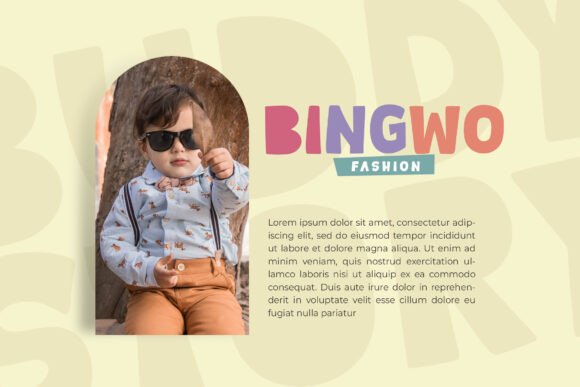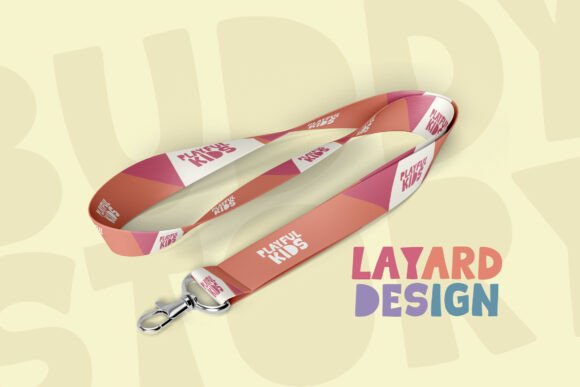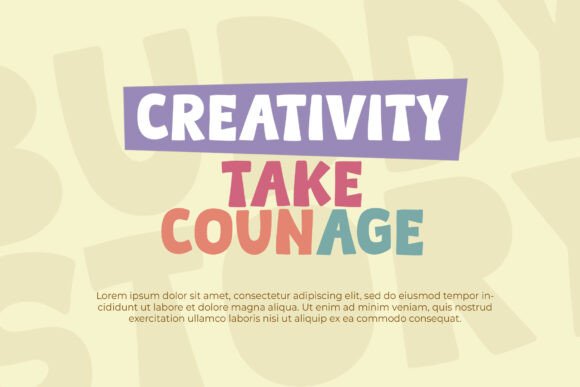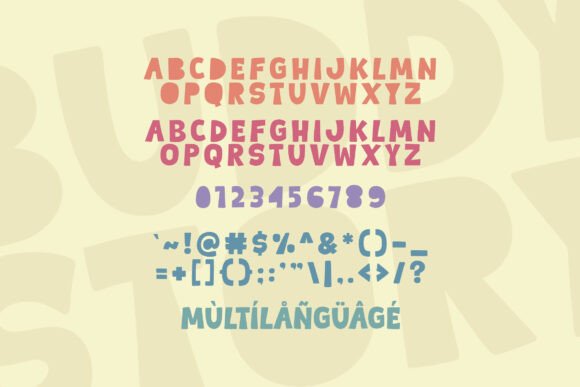
Buddy Story Font – Free Download
Introduction to Buddy Story Font
Buddy Story is a modern and unique display font with a lovely twist.
This font is perfect for posters, logos, magazines, book covers, banners, and more Get this amazing font, and use it to create beautiful designs.
Key Features of Buddy Story Font
Why Choose Buddy Story Font?
Buddy Story Font offers exceptional quality and versatility, making it a valuable addition to your design toolkit. Whether you’re creating for personal projects or commercial use, Buddy Story Font delivers professional results.